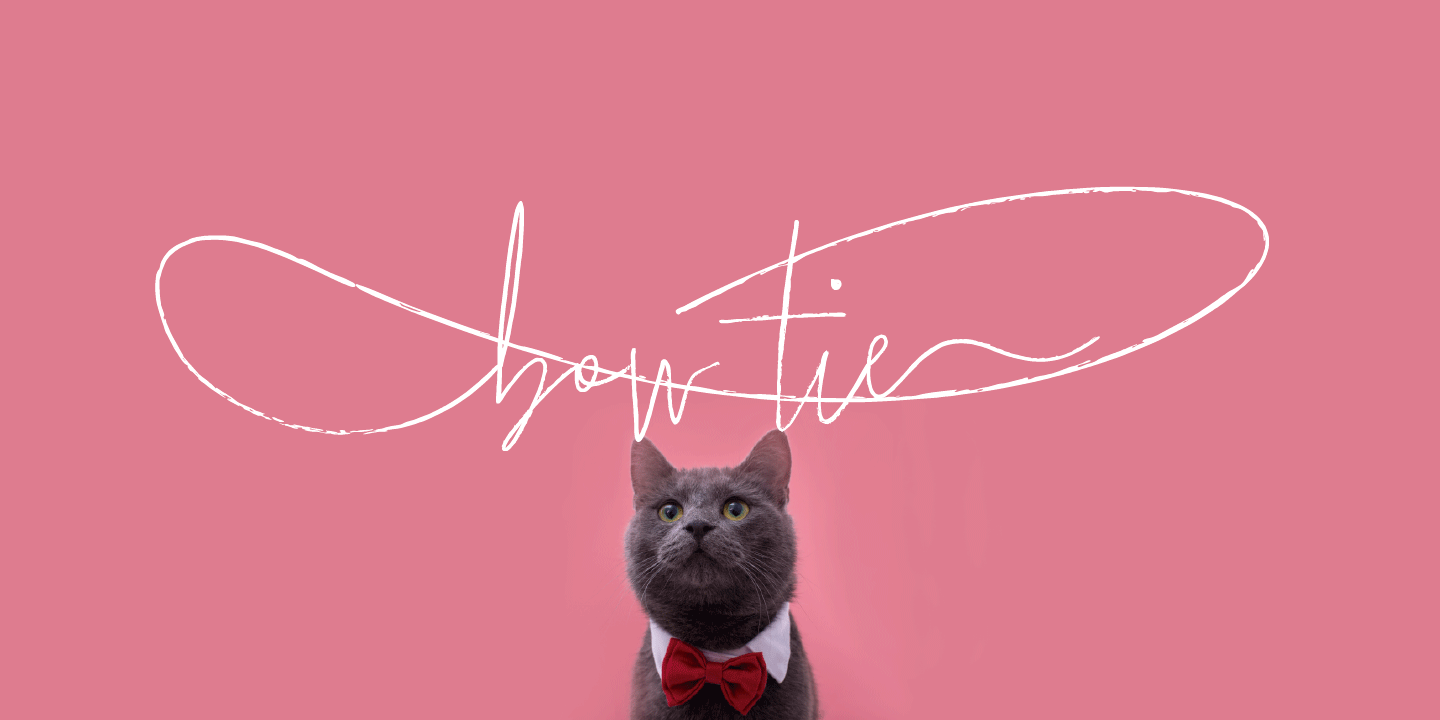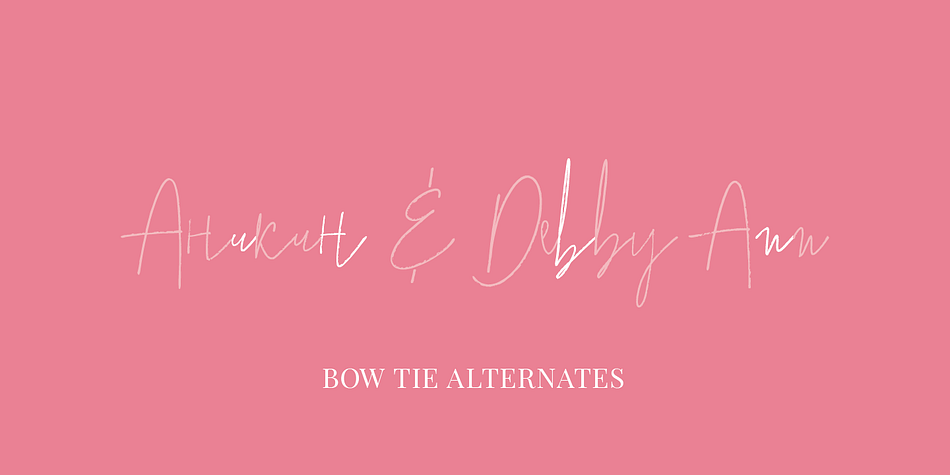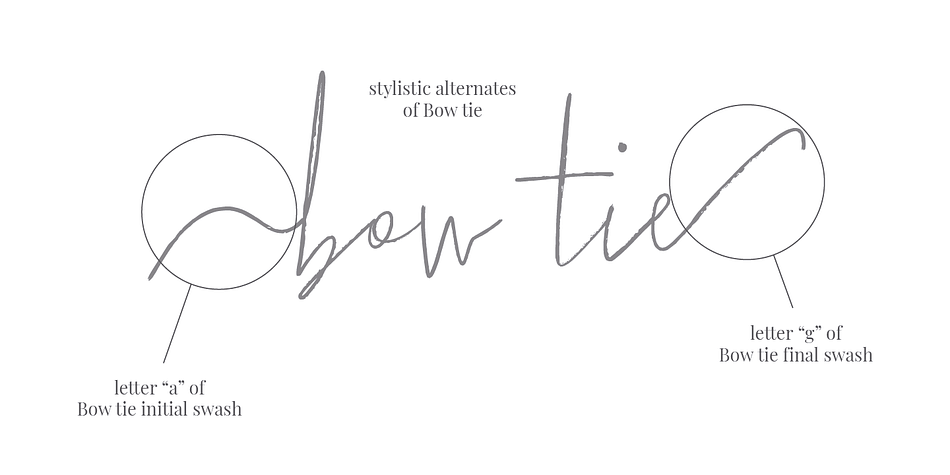
Bow Tie
Designed by Pedro Teixeira, Bow Tie is a dingbat and hand drawn font family. This typeface has four styles and was published by Pedro Teixeira.
Bow Tie, a slight textured, organic and elegant signature. This modern, stylish but legible script is handy for logo, poster, headlines, invitations, cards and all display needs. The OpenType Features are: stylistic alternates that cover all latin language and cyrillic, ligatures and discretionary ligatures.